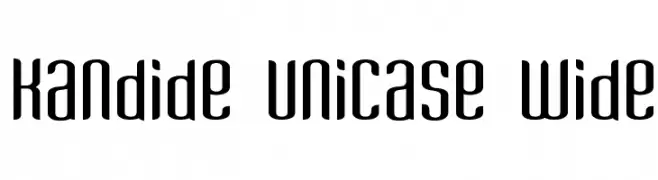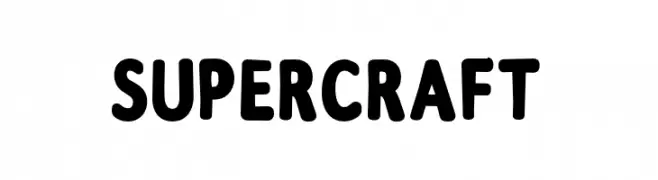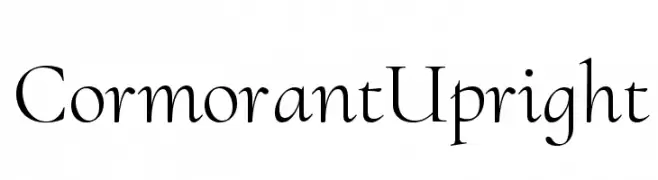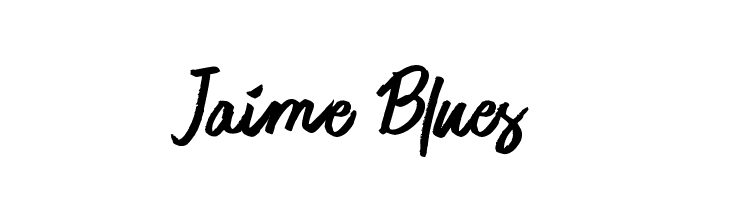
A modern, geometric unicase font with wide spacing and smooth, rounded strokes.
A classic serif font with elegant and refined characters.
A sketch-style serif font with a hand-drawn, textured appearance.
A playful, bold font with quirky, exaggerated shapes and a cartoonish style.
A bold serif font with high contrast and a classic yet modern style.
A bold, semi-condensed serif font with high contrast and elegant serifs.
A bold, rounded font with a playful and approachable style.
A classic serif font with elegant strokes and refined details.
A playful, handwritten font with elongated strokes and medium contrast.